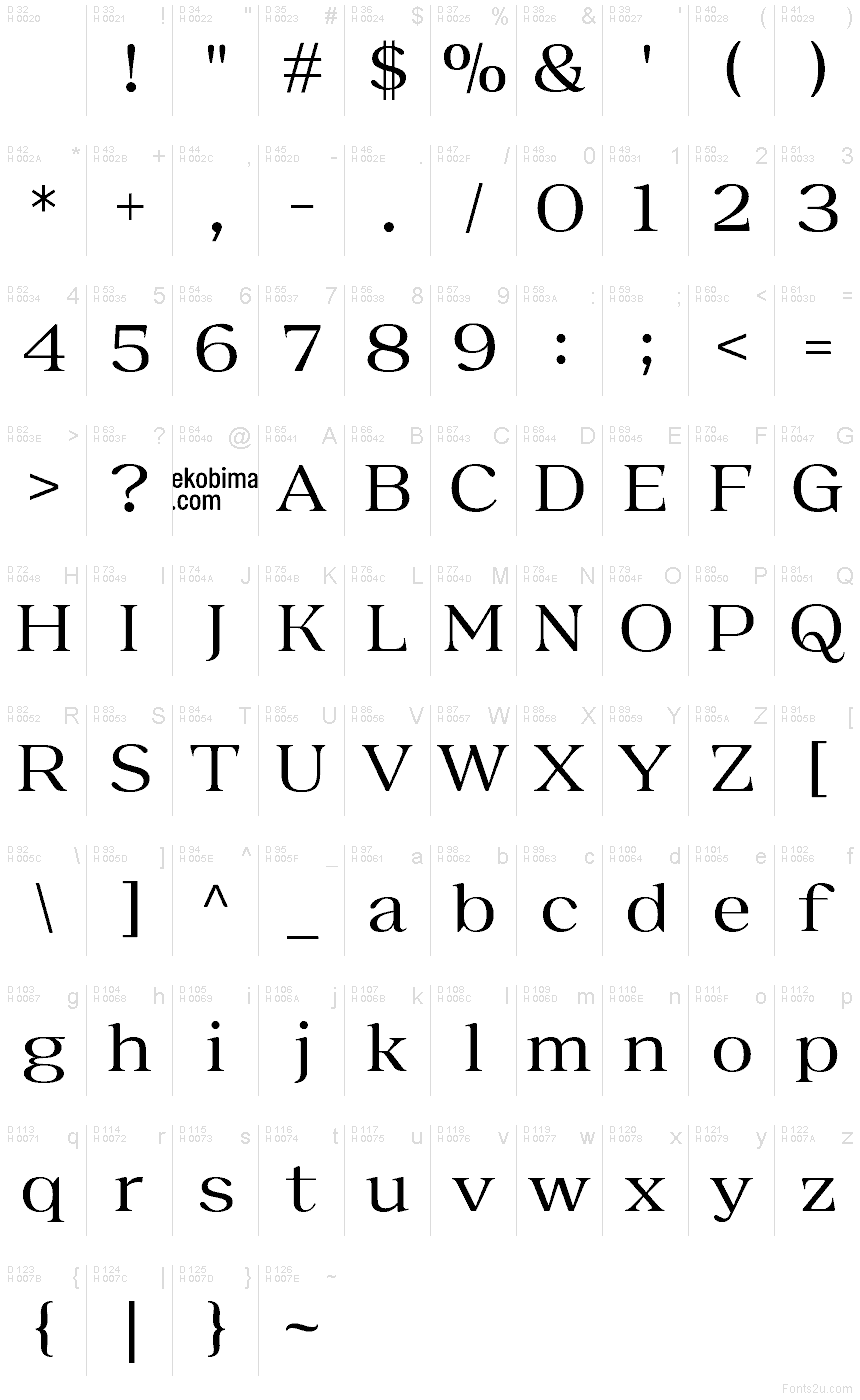
Rosemartin
Rosemartin font by Eko Bimantara is a free high-contrast serif font. It stands out with crisp hairlines and knife-edge serifs that taper into inky, confident stems, giving every word a poised, editorial snap. The rhythm is tight but breathable, with elegant curvature and steady verticals that feel both modern and classic—refined without getting fussy.
Using Rosemartin, headlines and names carry authority and sheen—think beauty branding, fashion posters, magazine mastheads, boutique wine labels, book covers, and refined invitations. This free font rewards large sizes where its slender details stay luminous. For balance, pair it with a quiet grotesque sans for body copy, or track it slightly open to accentuate its statuesque cadence.